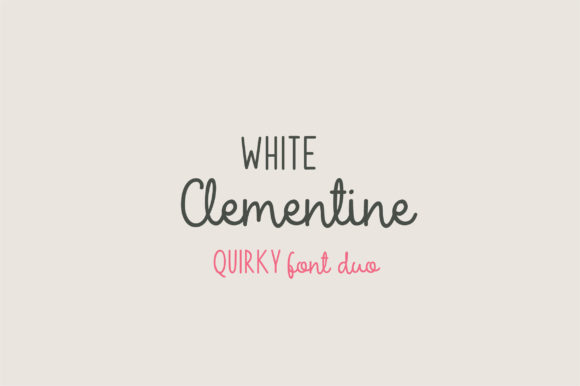
In a world teeming with digital monotony, White Clementine emerges as a breath of fresh air, an effervescent script font family that sparks joy and captivates imaginations. Designed by the visionary minds at Sunday Nomad, White Clementine is a testament to the power of creative expression, a font duo that dances across the screen with playful elegance.
Immerse yourself in the whimsical charm of White Clementine, a script font that exudes personality and warmth. Whether you're a seasoned designer or simply seeking to add a touch of uniqueness to your creative endeavors, White Clementine is your perfect companion. Its graceful strokes and cheerful demeanor bring life to any project, transforming ordinary text into captivating visual masterpieces.
White Clementine's versatility knows no bounds. Whether you're designing eye-catching logos, crafting heartfelt invitations, or creating social media posts that pop, this dynamic font family effortlessly adapts to your creative vision. Its enchanting characters dance harmoniously together, creating a cohesive and visually stunning aesthetic that leaves a lasting impression.
With White Clementine at your fingertips, you unlock a world of creative possibilities. Its playful nature lends itself perfectly to crafting personalized stationery, adding a touch of whimsy to greeting cards, or designing vibrant posters that demand attention. Let your imagination run wild as you explore the endless applications of this versatile font duo.
But what truly sets White Clementine apart is its remarkable ability to excel in small text print. Its carefully crafted characters retain their clarity and charm even at the most diminutive sizes, ensuring that your message shines through with unwavering precision. Ideal for intricate designs, delicate branding, or simply adding a touch of sophistication to your digital creations, White Clementine delivers exceptional results every time.
As a PUA-encoded font, White Clementine grants you effortless access to its entire repertoire of glyphs and swashes. Unleash your creativity and explore the depths of this font's versatility, incorporating stunning flourishes and elegant accents that elevate your designs to new heights.
Embrace the magic of White Clementine, a font family that ignites your imagination and transforms your creative visions into tangible works of art. Its playful spirit and captivating charm will leave an unforgettable impression on your audience, setting your projects apart in a sea of mediocrity.